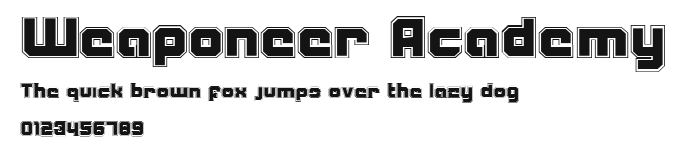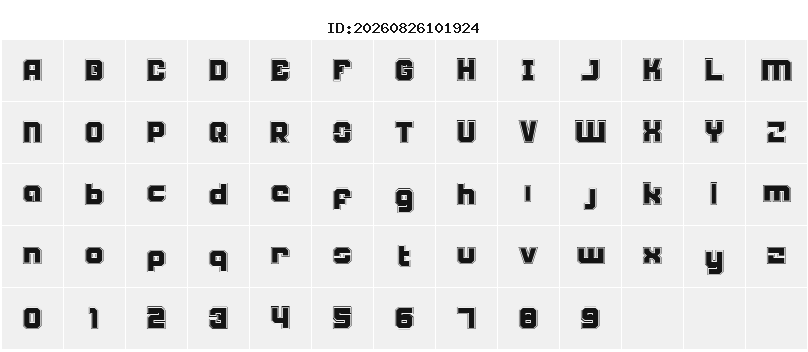
• Font Name: Weaponeer Academy
• Full Font Name: Weaponeer Academy
About Weaponeer Academy.ttf
Weaponeer Academy.ttf is a modern, elegant sans-serif font designed for ultimate readability and visual harmony. Perfect for branding, headlines, web design, and print materials.